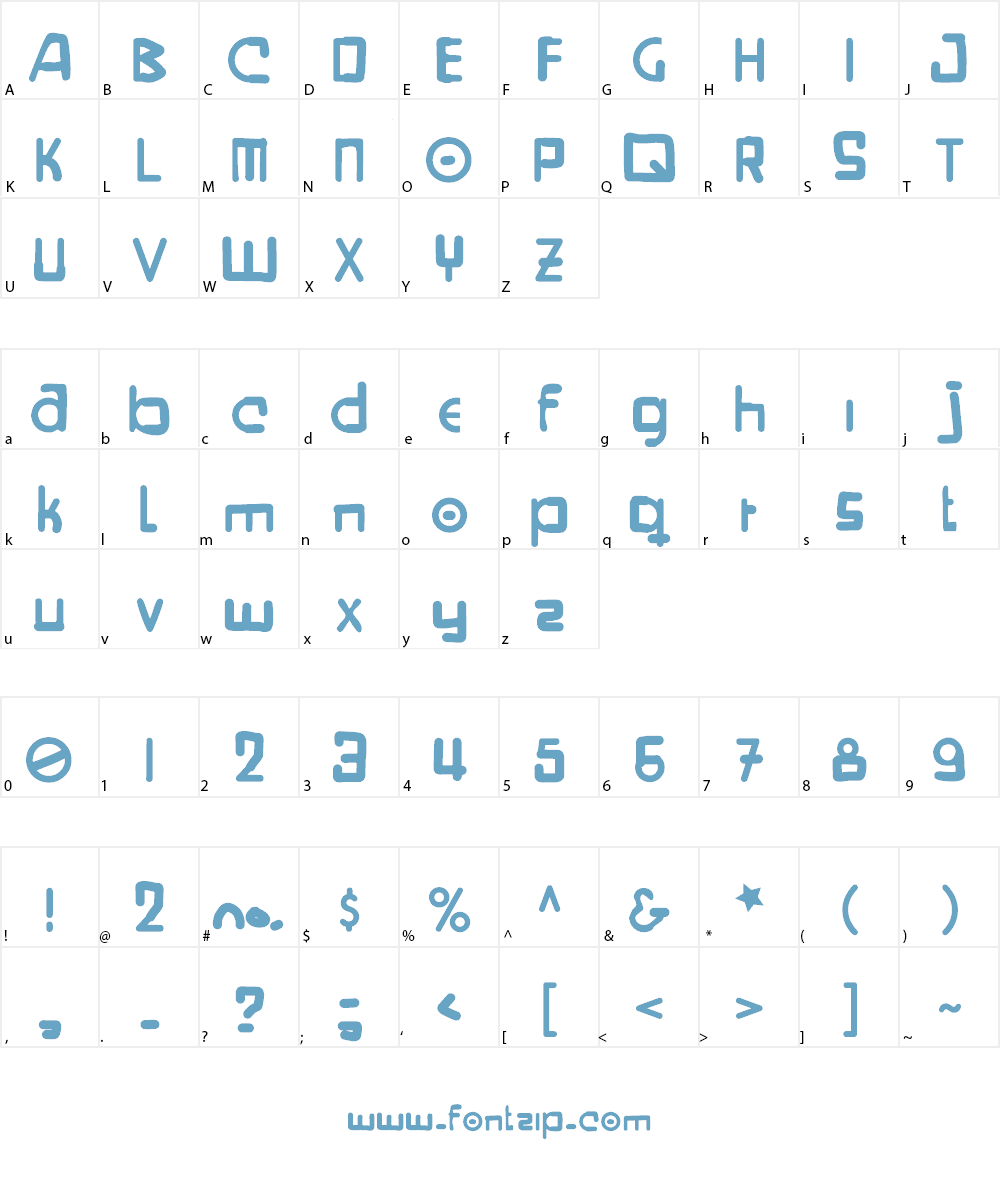
This font is inspired by Ray Larabie's rounded sans-serif font, Rimouski.
On this version, what will you call in the skyrim. Modified version of sans-serif font named Skyrimouski.